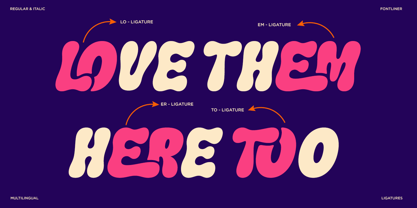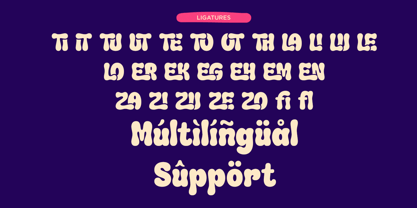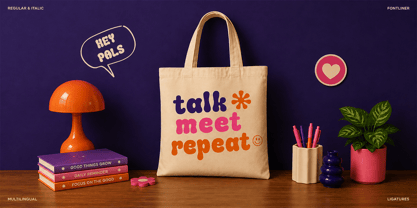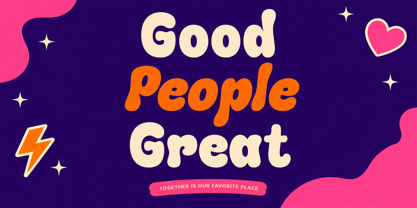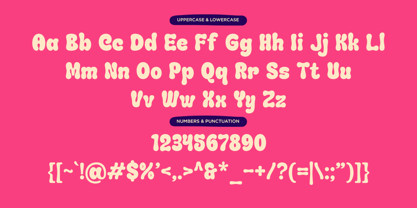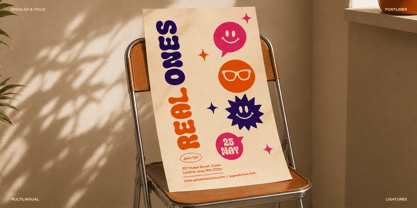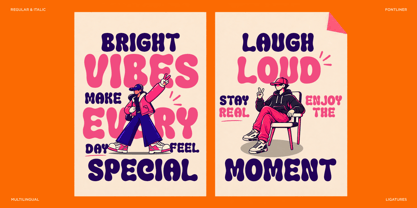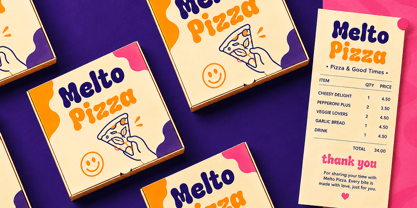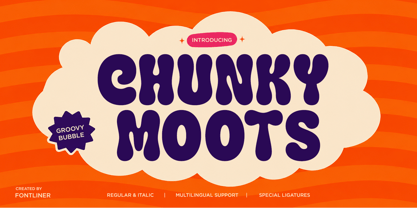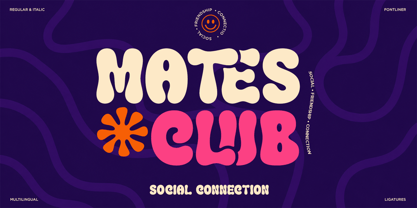
Chunky Moots
La famille de polices Chunky Moots a été conçue par Ghina Luthfiarieska et publiée par Font Liner. Chunky Moots contient 2 styles et options de package familial. En savoir plus sur cette famille
Chunky Moots is a bold and playful display font with chunky rounded letterforms and a fun, friendly personality. Its expressive shapes are perfect for food branding, packaging, restaurant menus, posters, social media graphics, kids’ designs, stickers, merchandise, and cheerful logo projects.
Designed to make headlines stand out, Chunky Moots brings a colorful retro-pop feel to both digital and print designs. The font also includes multilingual support, making it a versatile choice for creative projects that need a bold and approachable visual style.